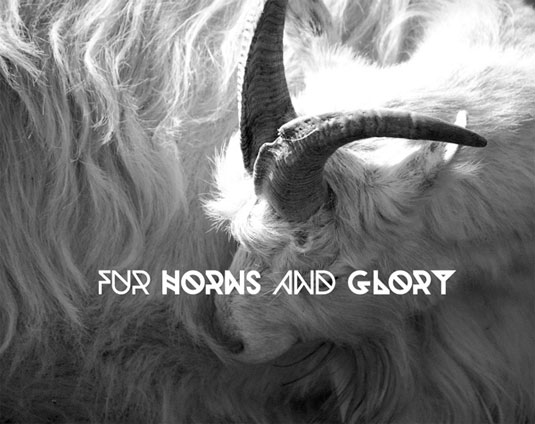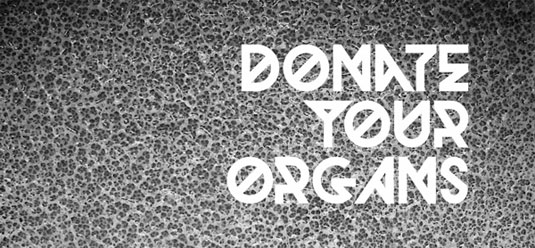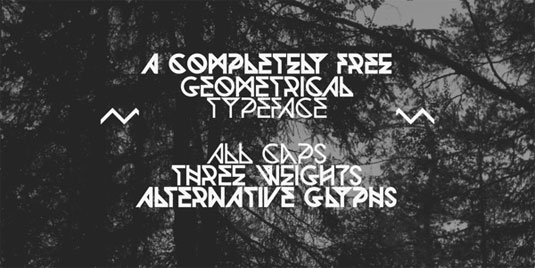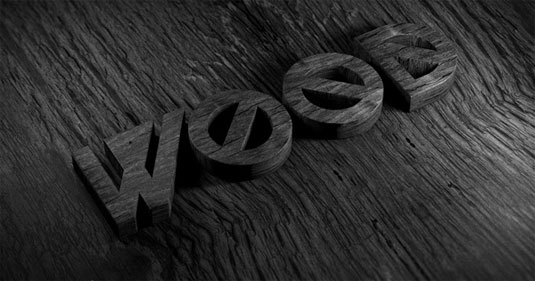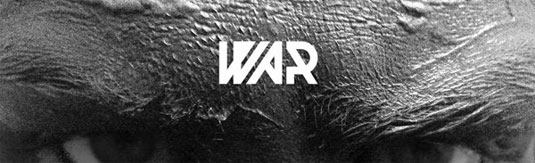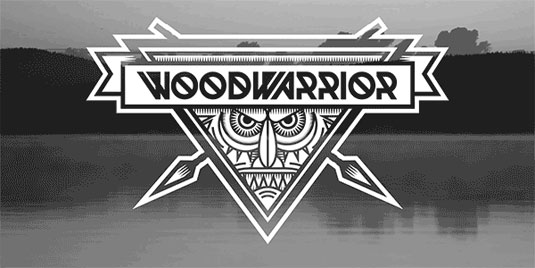
Font of the day: Woodwarrior
Woodwarrior by Anton Bohlin
Woodwarrior is a typeface inspired by the north, and the contrast between modern man made structures and untouched nature shaped by wind and ice alone. It was created by designer Anton Bohlin, who recently graduated from the Motion Graphics Program at Hyper Island, Stockholm. Now working full time at Cake, Bohlin regularly experiments with typography.
Focused around geometric shapes, Woodwarrior is the perfect font for experimental headlines and eye-catching straps.